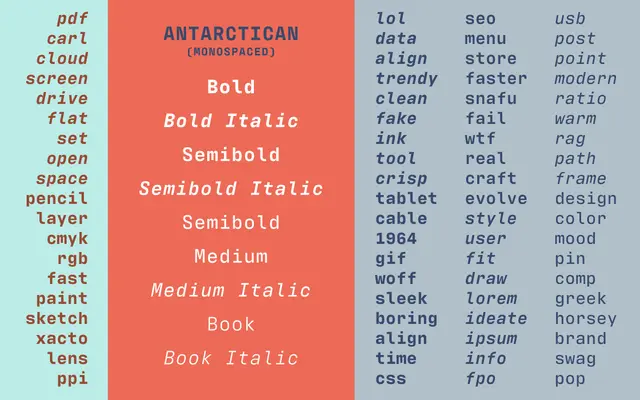
Antarctican
A monospaced text face built for Retina displays and print, pairing asymmetric contrast and deep notches with a large x-height to aid legibility at small sizes.
Antarctican uses asymmetric contrast, deep notches and orthogonal stroke terminals to keep the eye moving across the line, departing from the usual conventions of even-rhythm monospacing. A large x-height makes the lowercase assertive at small sizes while remaining workable in display settings. Antarctican Headline is a proportionally spaced condensed companion family, allowing heavier weights than monospaced construction permits.
Antarctican is explicitly monospaced in its primary form, designed for screen and print text use, with a companion condensed headline family that is proportionally spaced.